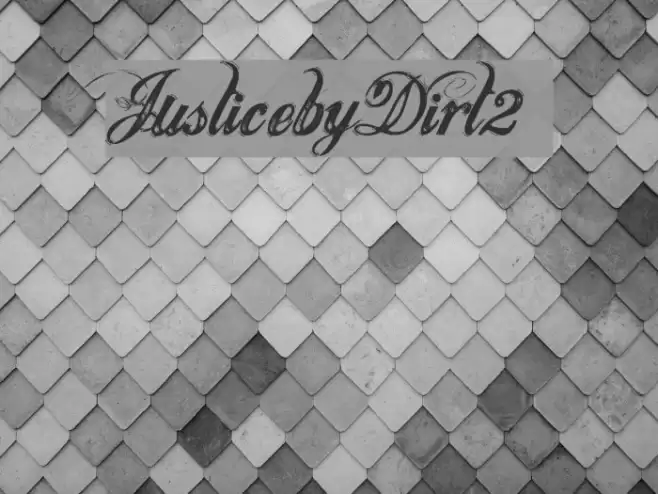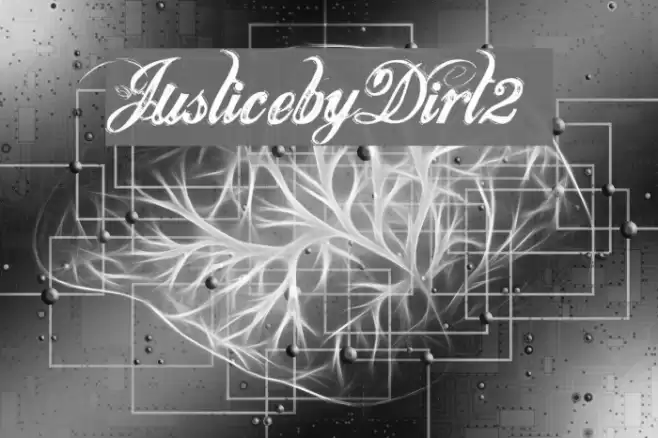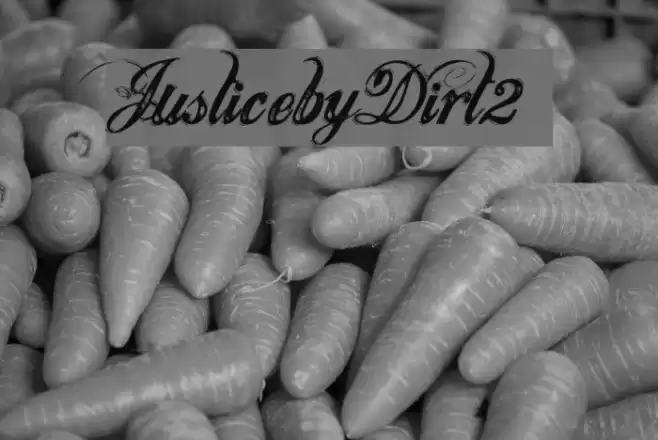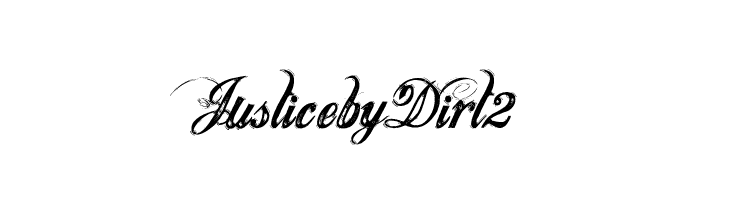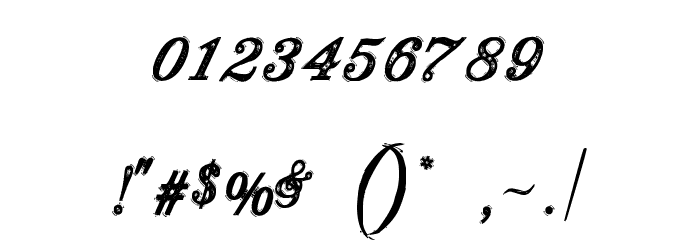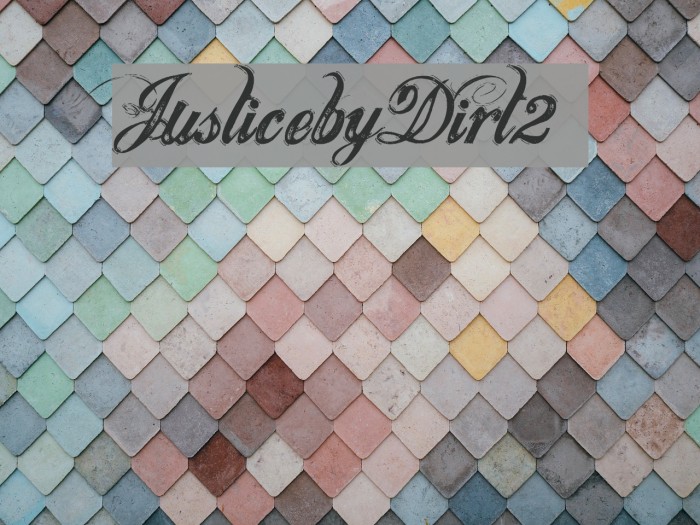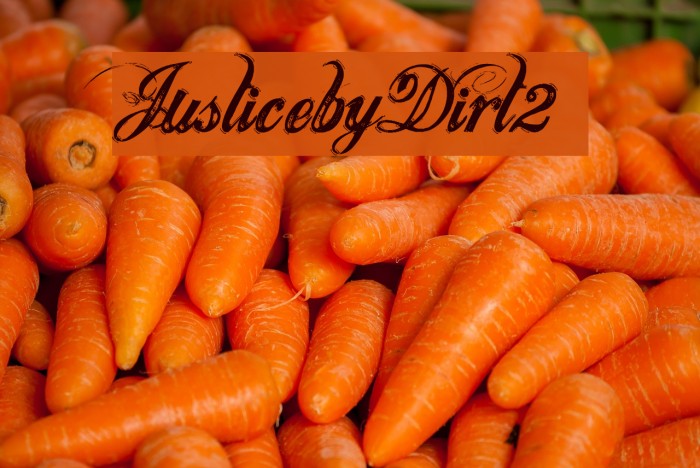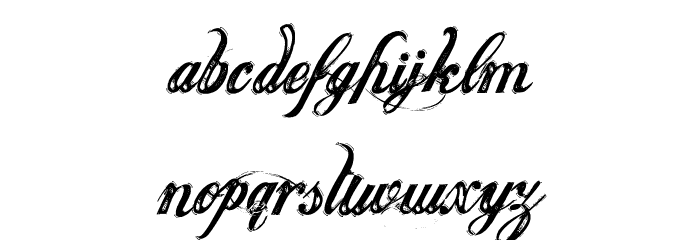
JusticebyDirt2 Font
JusticebyDirt2 Description
This font features an elaborate and intricate design, characterized by its ornate and decorative script style. The uppercase letters are particularly embellished with flourishes and swashes, giving it a highly decorative appearance. The lowercase letters maintain a cursive flow, complementing the uppercase with a slightly more restrained elegance. The numerals and special characters are consistent with the overall ornate theme, ensuring a cohesive look throughout. This font exudes a sense of sophistication and grandeur, making it suitable for formal and luxurious applications.
An ornate and decorative script font with elaborate flourishes from Uncategorized fonts.
- Proposed Projects: Ideal for wedding invitations, luxury branding, certificates, and high-end product packaging.
- Character Spacing: Tight
- Use Case: Logos, Invitations, Branding